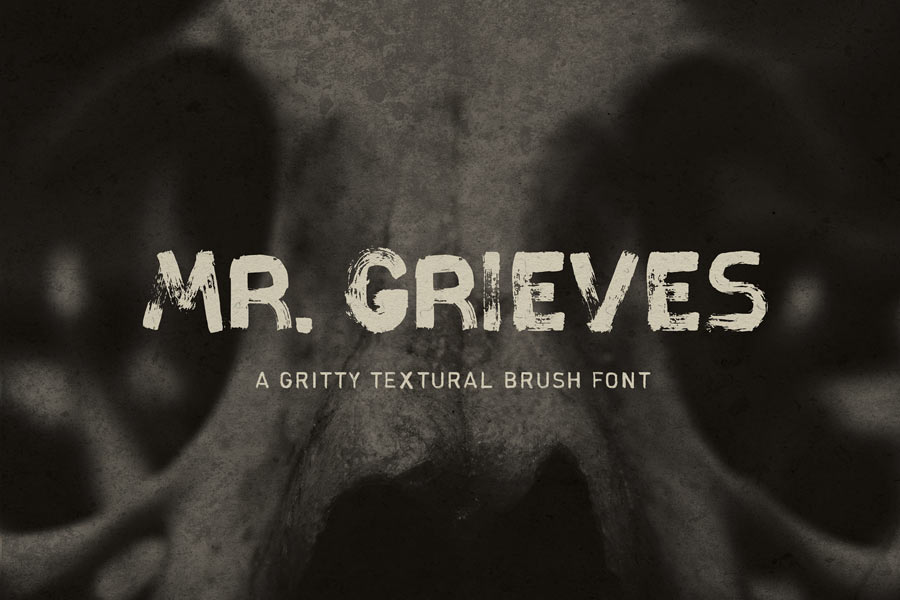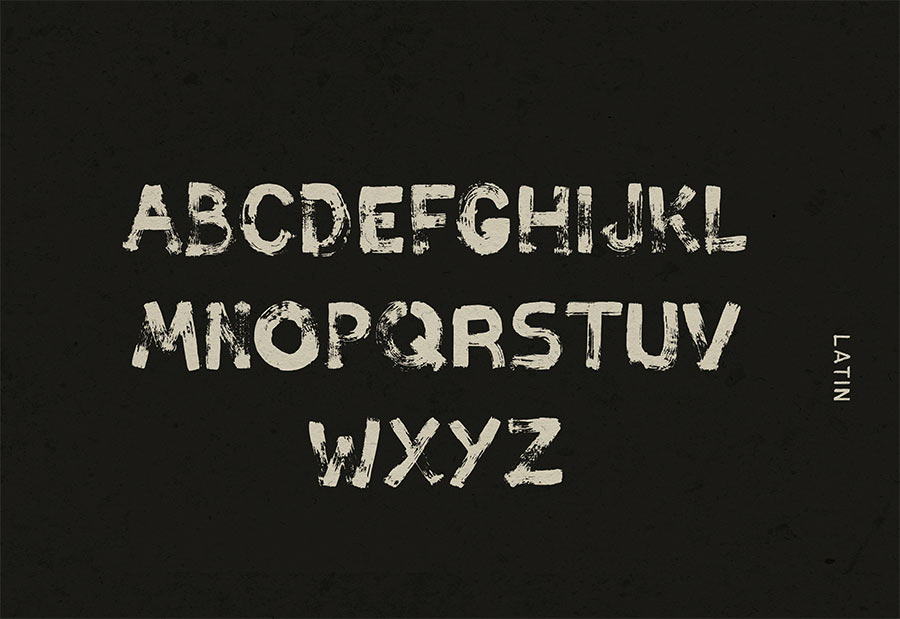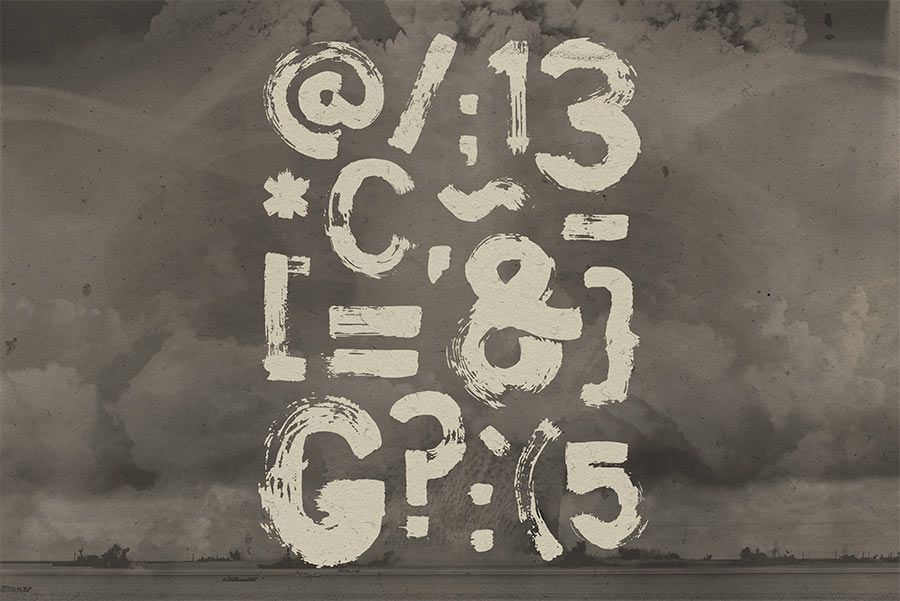
Mr. Grieves is a hand drawn, grungy feel sans serif font that is free for all. The uppercase letterforms were illustrated with bold, texture heavy brush strokes, emitting the raw, organic and sense of power.
This uppercase-only font is great for wide ranges of creative and graphic design works, and it’s free for both personal and commercial works.